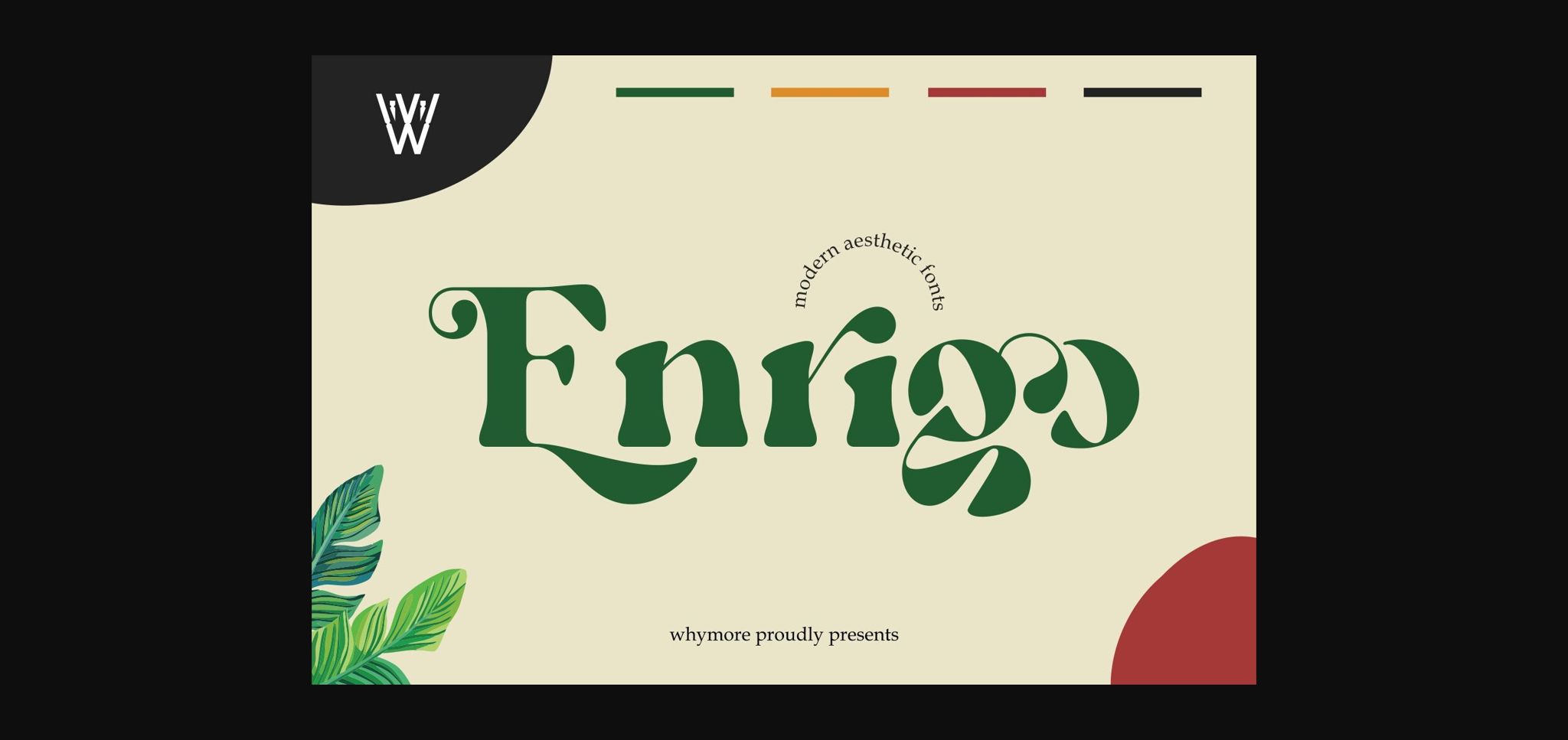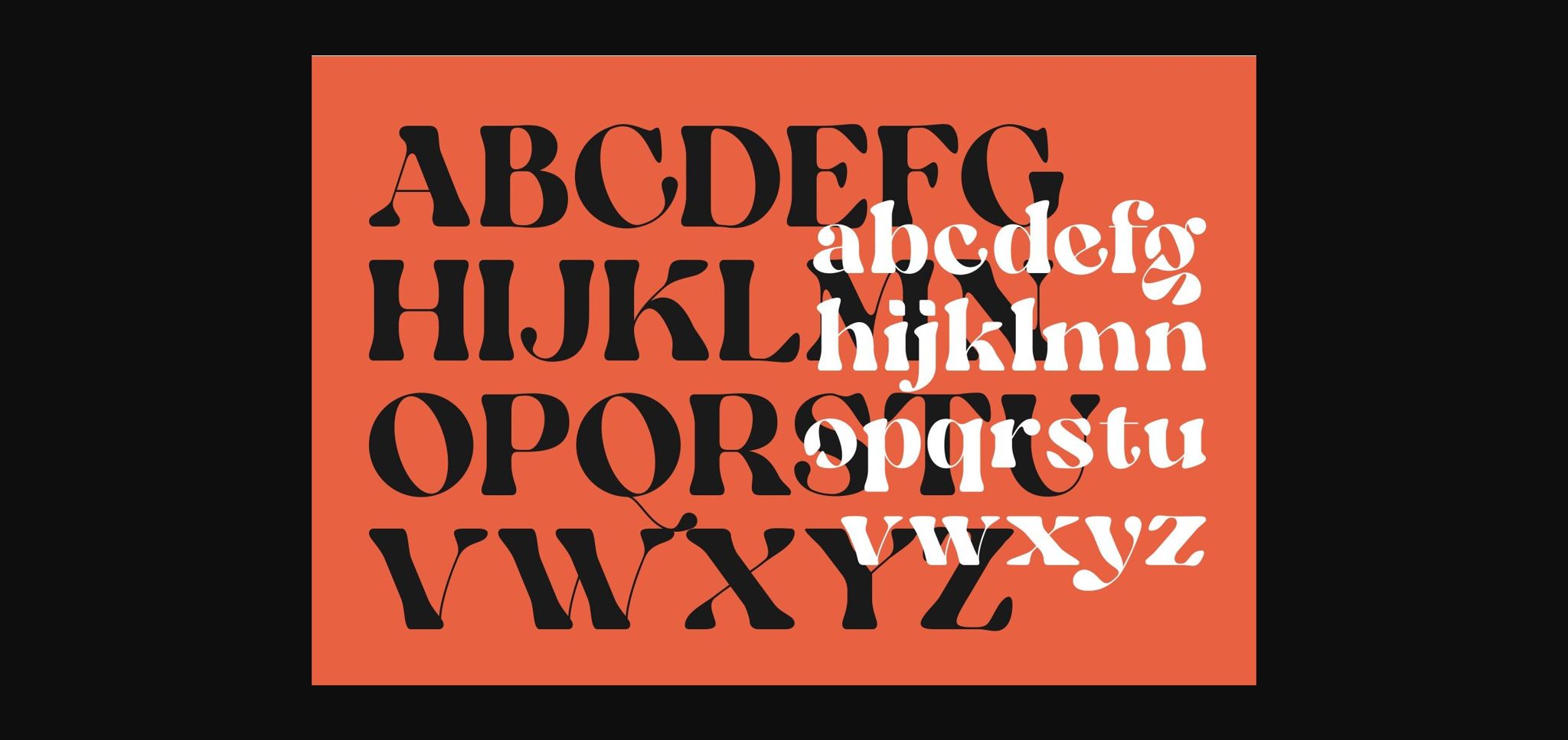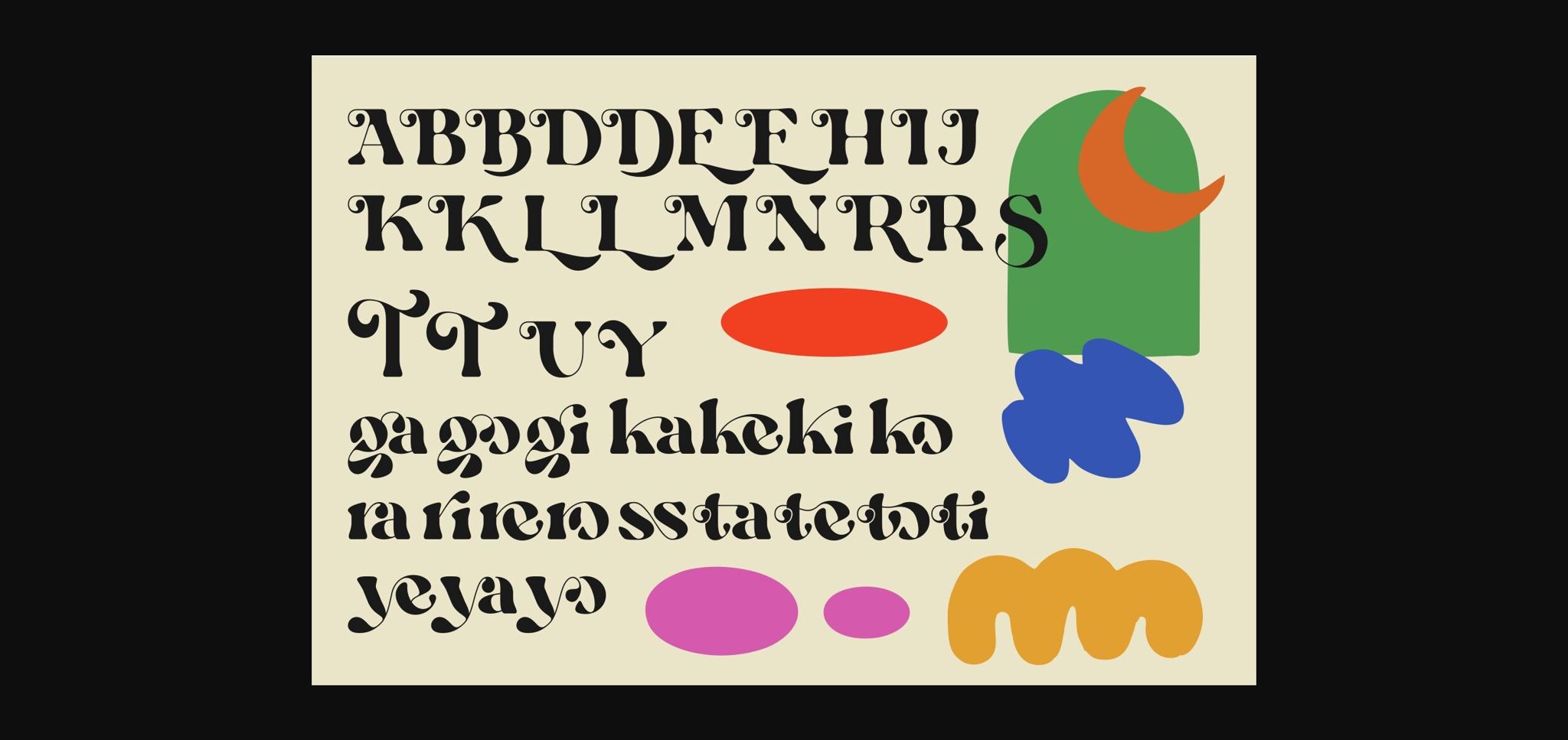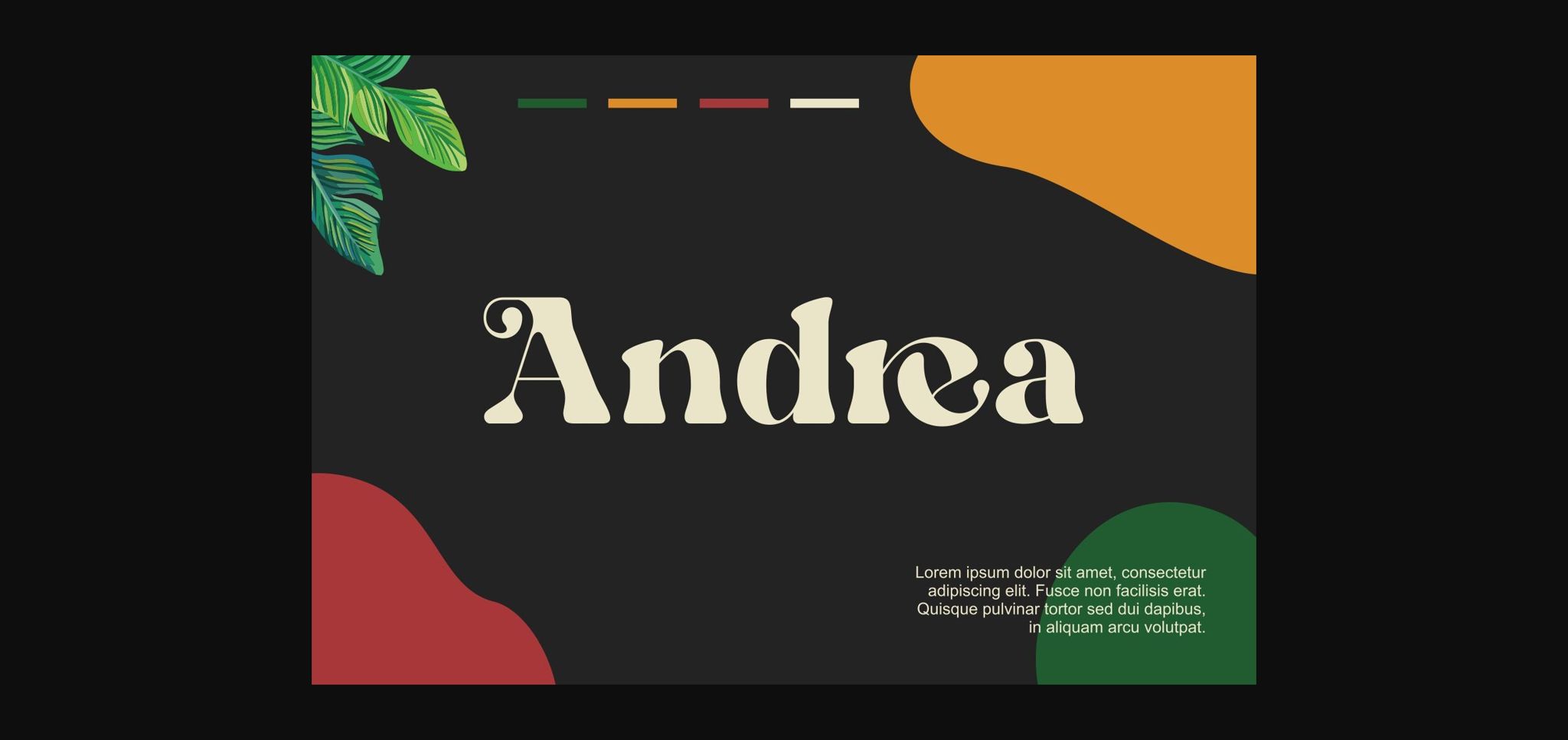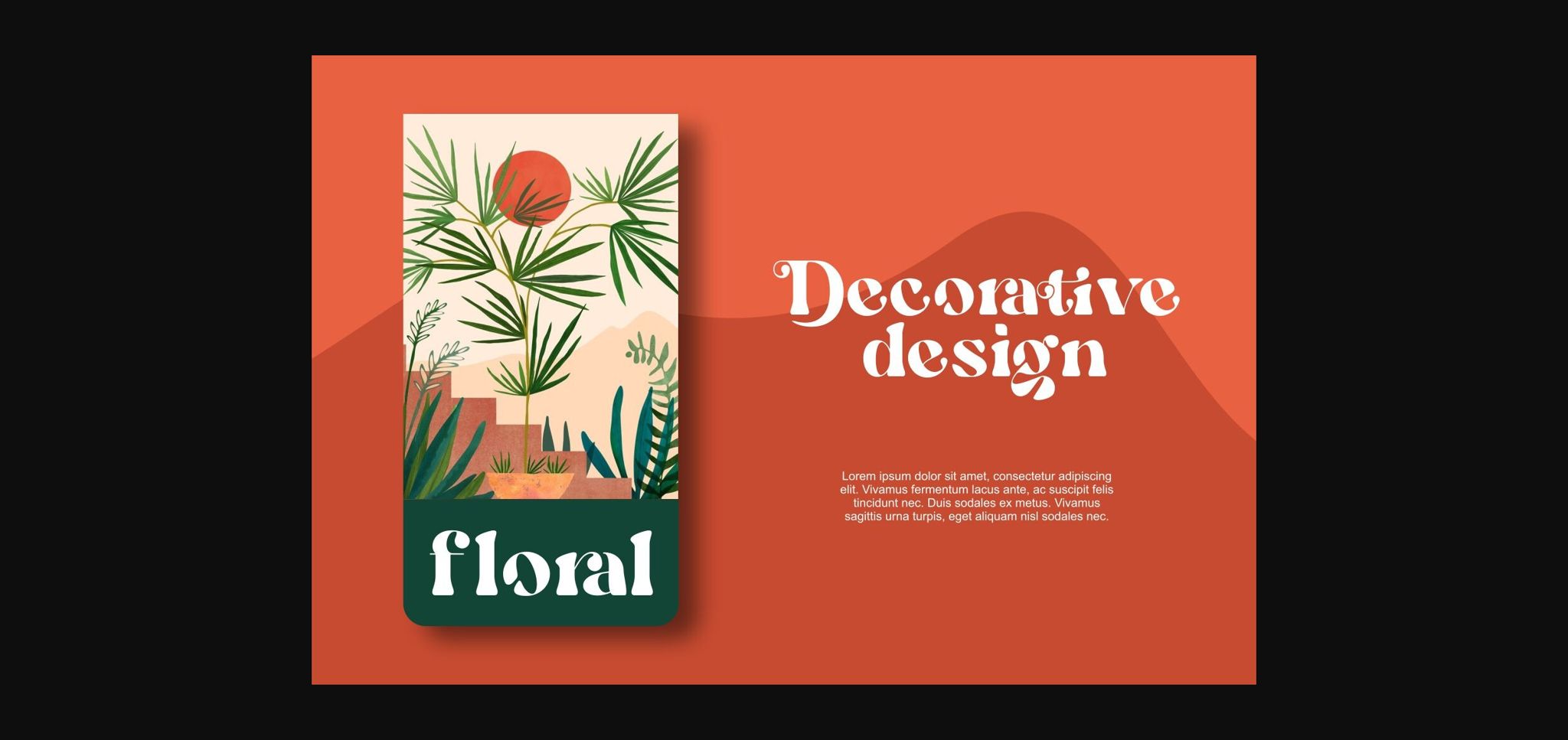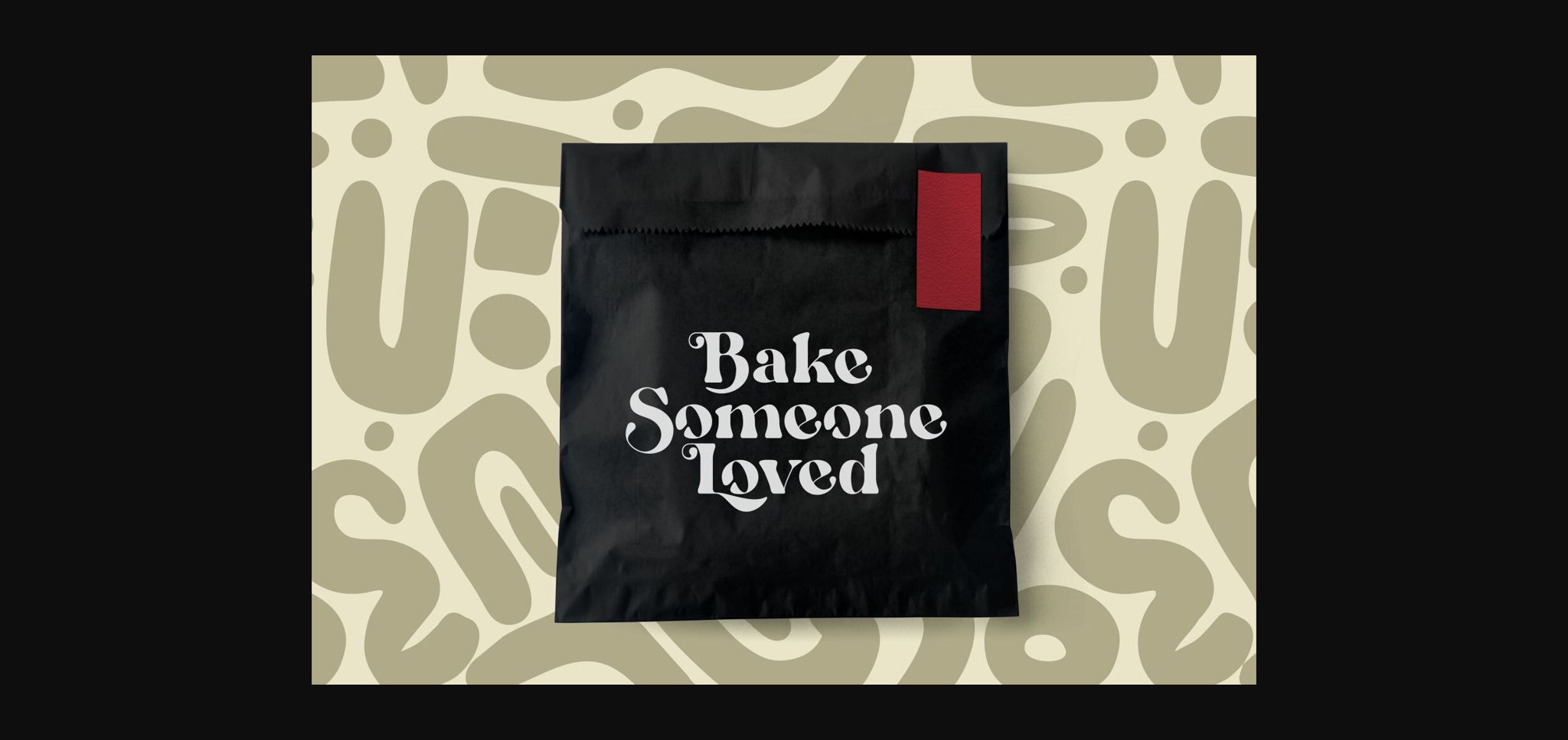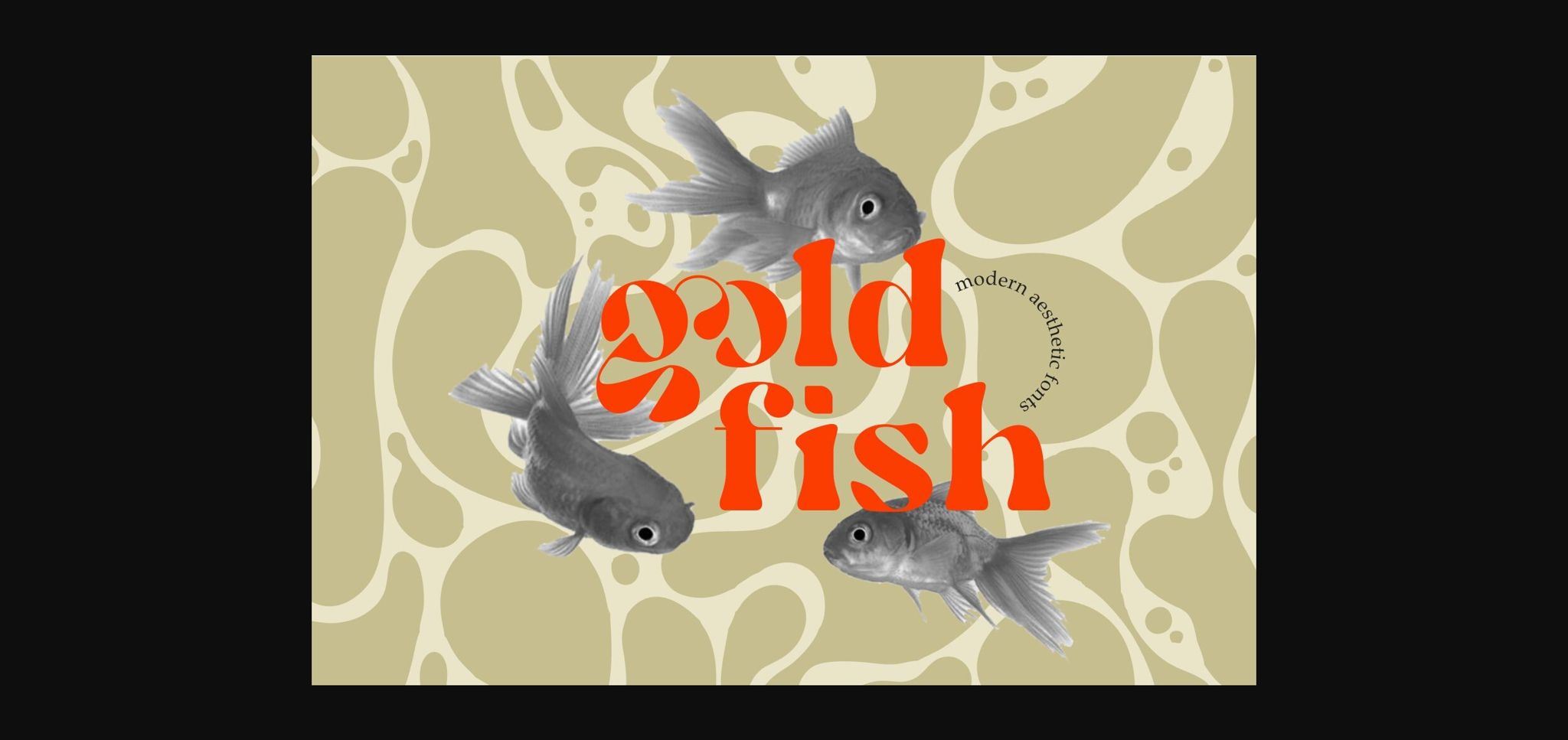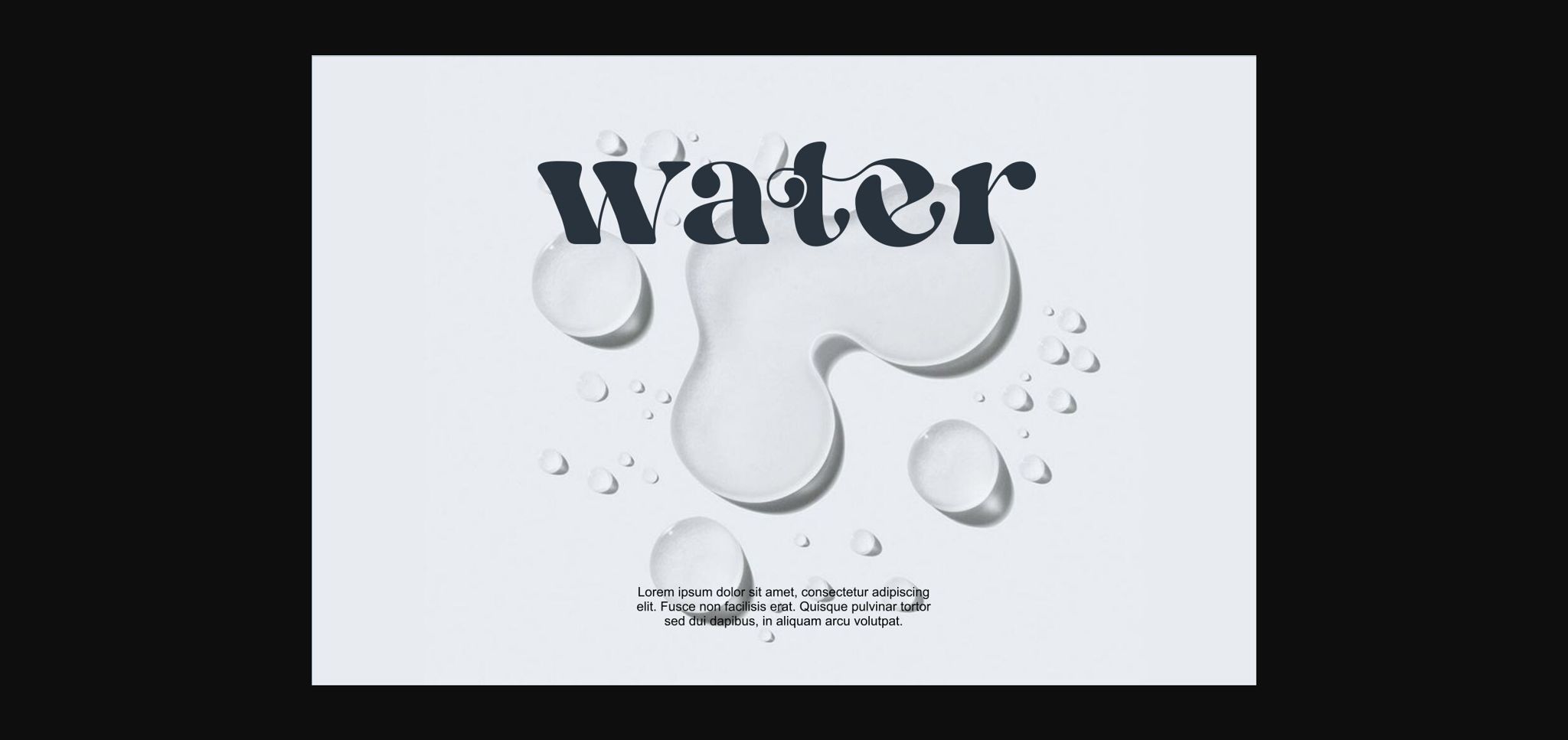
Enrigo Font
About Enrigo Font
The Enrigo font was inspired by the name Aesthetic retro itself. Which this font wants to present Groovy but tends to more aplicable for modern design, elegance but looks relaxed and is suitable for use in several aspects of design design such as, product design, social media, packaging, logos and much more.